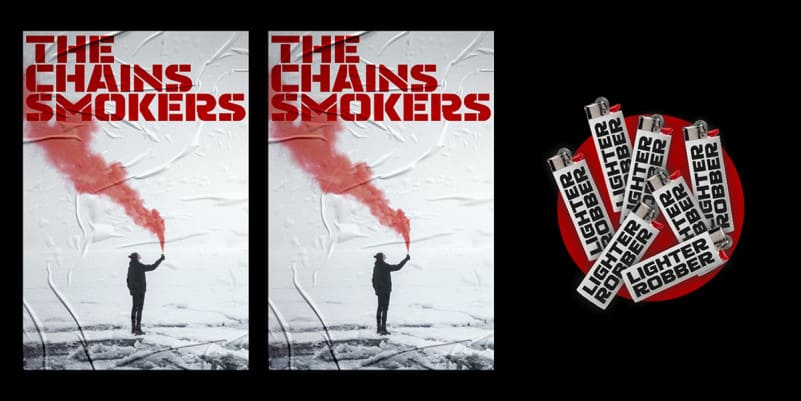
Gover Display Font
Hi Everyone! Introducing Gover Font is a sans serif Display font.You can use sans serif font feature in many areas easily. It’s was designed to be a typeface that is pleasant to read on screens. The typeface a refined touch that give any headline an elegant appearance. Gover Display Font works perfectly for creative project such as logo, T-shirt / apparel, badge, invitation, packaging,headline, poster, magazine, greeting card, and wedding invitation. You can access the open type features and multilingual on mostly Adobe programs, such as Adobe Indesign, Adobe Illustrator, Adobe photoshop etc.